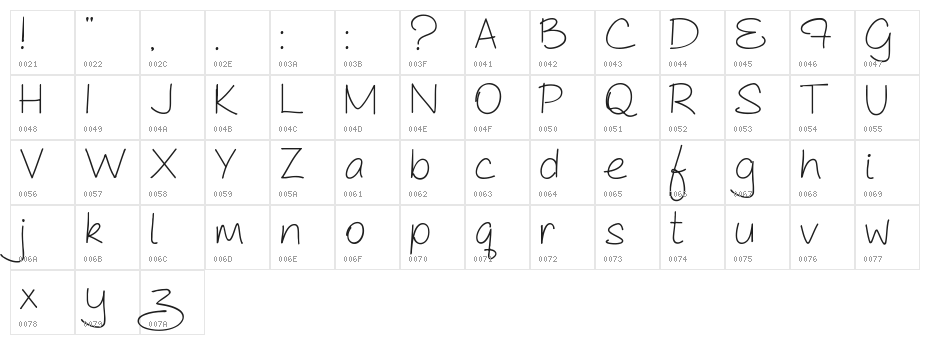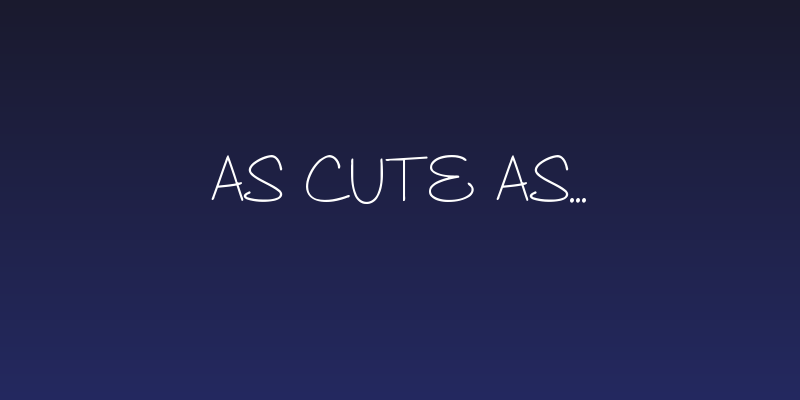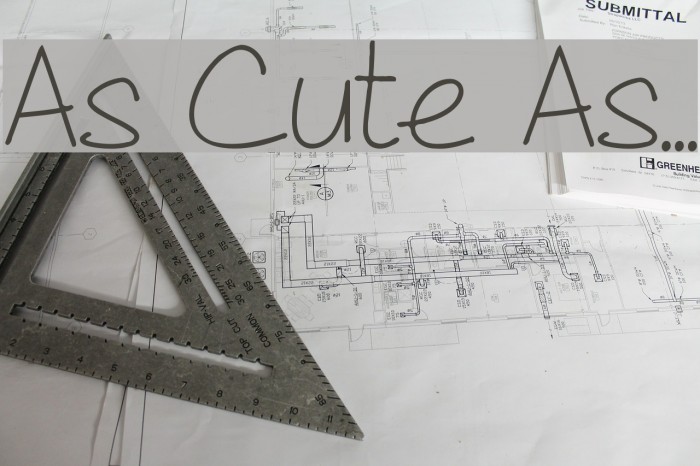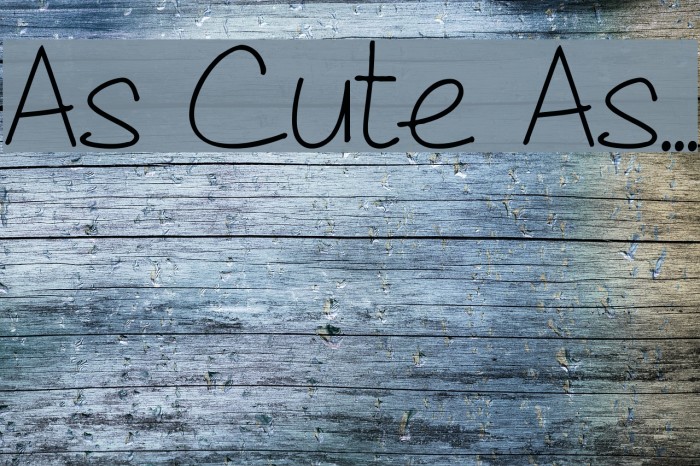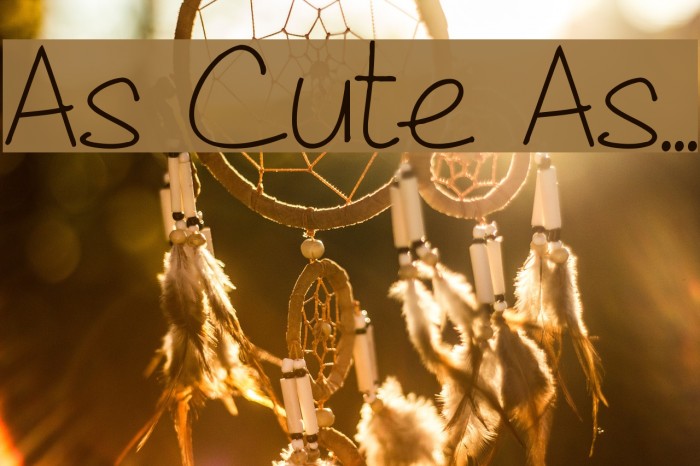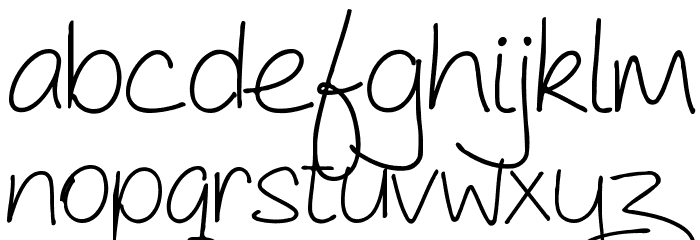
As Cute As... Font
As Cute As... Description
This playful and whimsical font features a handwritten style that exudes a sense of fun and creativity. The letters are characterized by their smooth, flowing lines and slightly irregular shapes, giving them a personal and informal touch. The uppercase letters maintain a consistent height, while the lowercase letters vary slightly in size, adding to the casual feel. The font's strokes are uniform in thickness, providing a balanced and harmonious appearance. The overall design is clean and legible, making it suitable for a variety of creative projects.
| Use Case | Greeting cards, Creative projects |
| Proposed Projects | Ideal for greeting cards, children's books, playful branding, and creative social media graphics. |